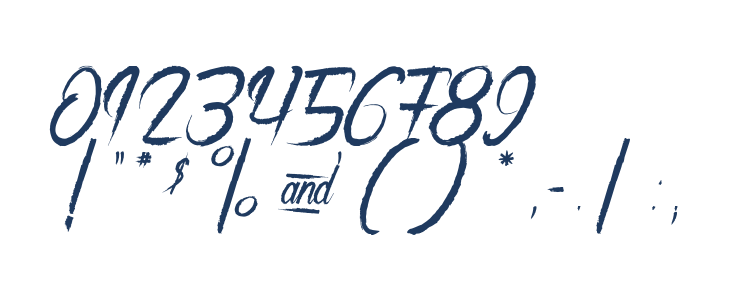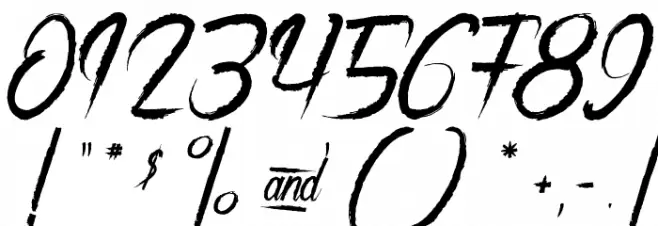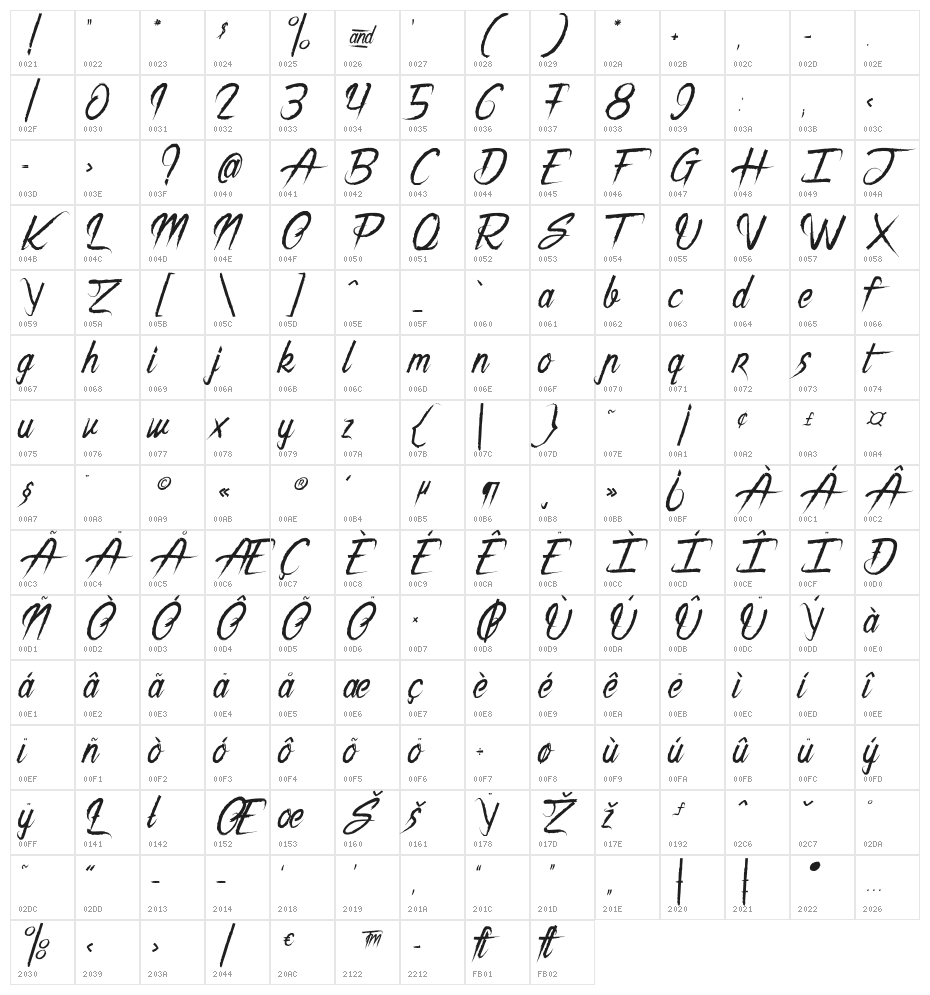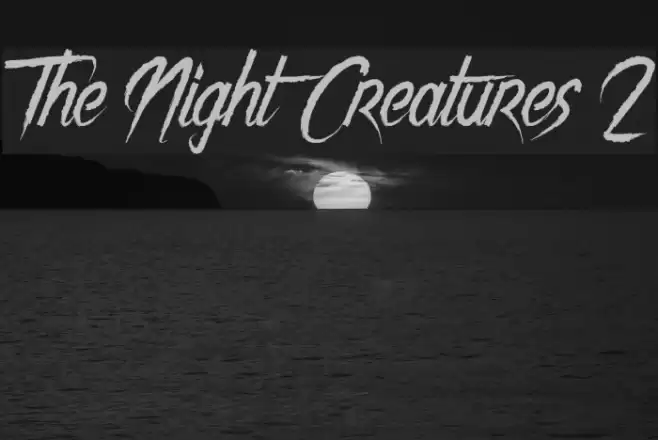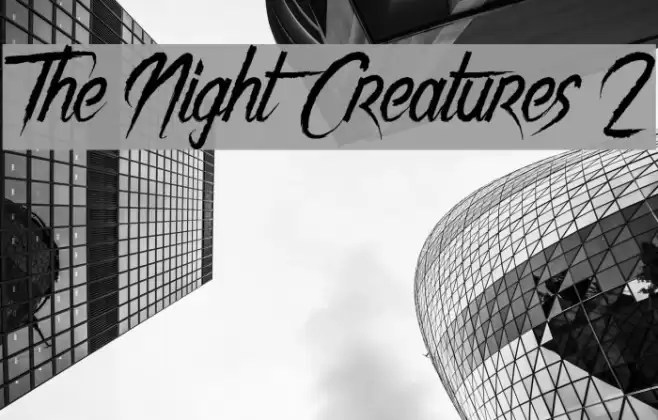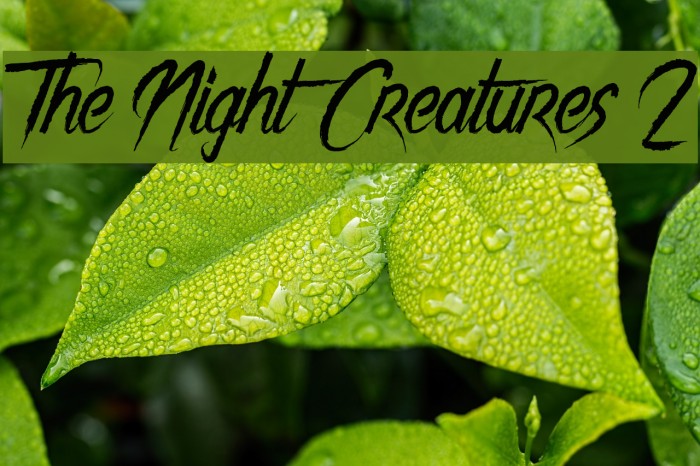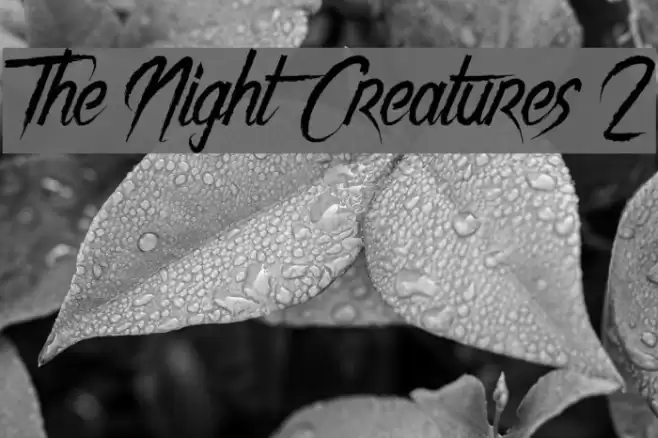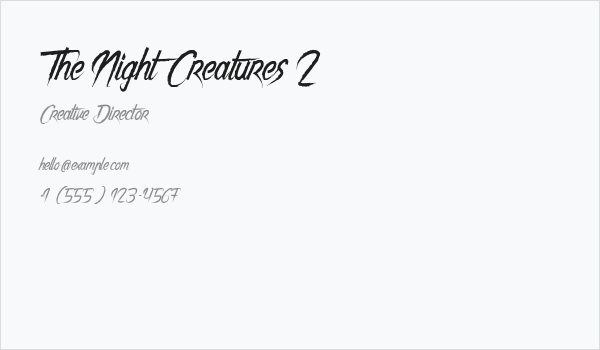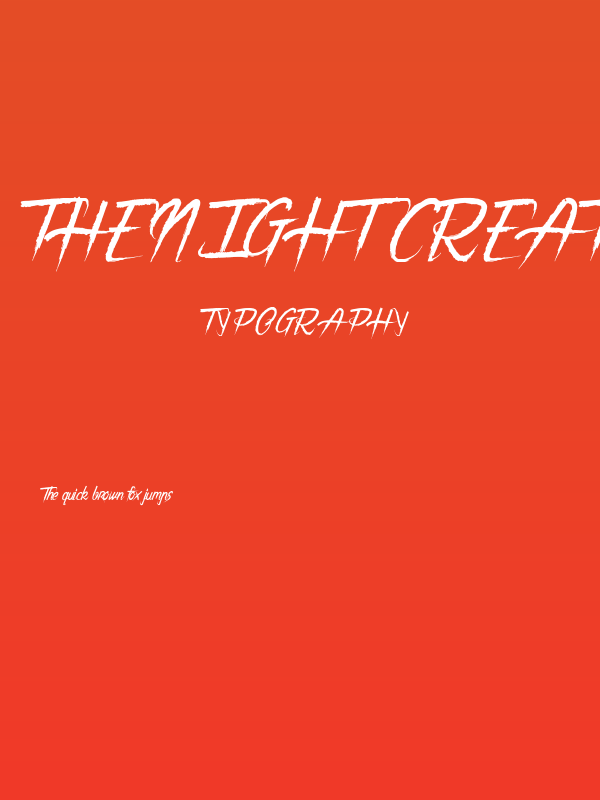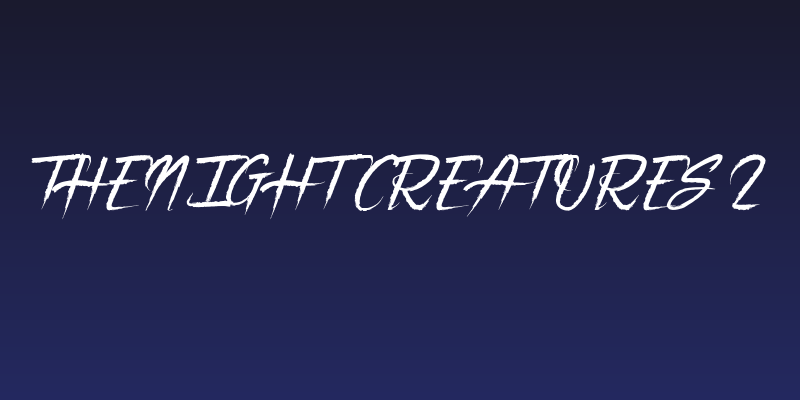
The Night Creatures 2 Font
This font features a dynamic and edgy script style, characterized by sharp, angular strokes and a sense of movement. The uppercase letters are bold and dramatic, with a slight slant that adds to the energetic feel. The lowercase letters maintain a consistent style, with elongated forms and pointed terminals that enhance the font's aggressive aesthetic. Numbers and special characters follow the same design principles, ensuring a cohesive look across all glyphs. The overall impression is one of intensity and flair, making it suitable for projects that require a bold statement.
| Proposed Projects | Ideal for horror-themed designs, edgy branding, album covers, and event posters. |